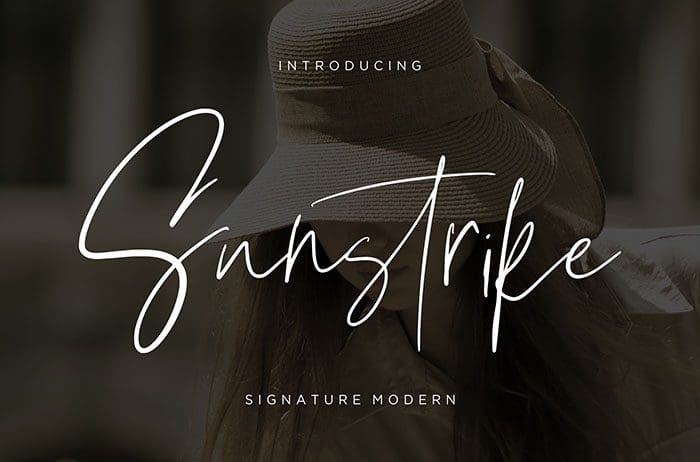
Suntrike Script Font
Suntrike is a script font with an elegant and classy style. Perfect for branding projects, logo, social media posts, product designs, photography, and more. Thanks to Creatype Studio for sharing this font! Take a look at this portfolio for more of his stunning fonts.